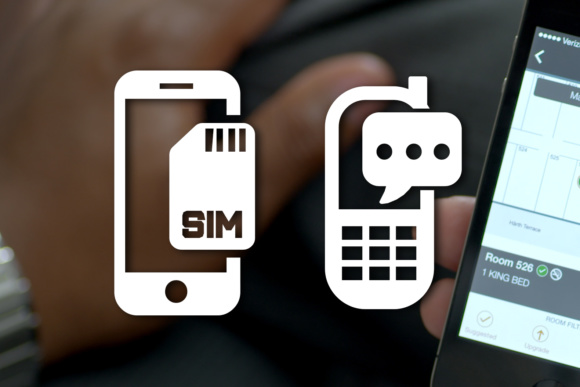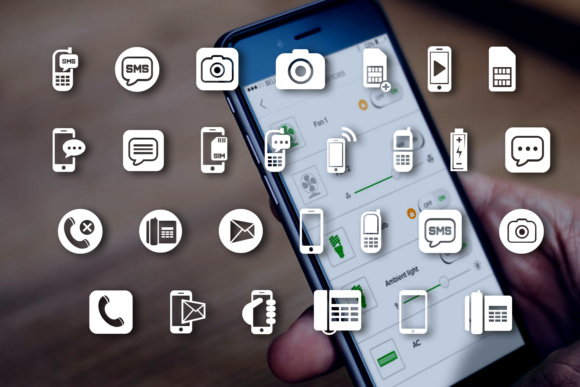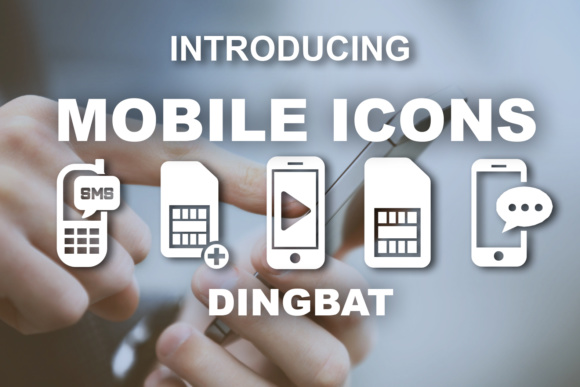
Mobile Icons Font
About Mobile Icons Font
Mobile Icons is an awesome dingbat font that offers a wide range of mobile icon graphics. Whether you’re a designer working on mobile app interfaces, a developer creating websites with mobile compatibility, or simply someone who loves incorporating mobile-themed elements into your designs, Mobile Icons has you covered.
This dingbat font provides a diverse collection of mobile-related icons, representing various functions, features, and app categories. You’ll find icons for phone calls, messaging, social media, settings, camera, music, maps, shopping, and much more. The icons are designed to be visually appealing and easily recognizable, making them suitable for a wide range of design projects.
The convenience of Mobile Icons lies in its use as a font. Each icon corresponds to a specific keyboard character, allowing for easy access and integration into your designs. By simply typing the corresponding character, you can insert the desired mobile icon directly into your text or design software, saving you time and effort.
The versatility of Mobile Icons enables you to enhance your designs in various ways. You can use the icons as standalone elements, incorporate them into navigation menus or buttons, or even create custom patterns and compositions using a combination of different icons. The possibilities are endless, allowing you to tailor your designs to suit your specific needs.
Whether you’re creating mobile app interfaces, designing website mockups, or adding a touch of mobile aesthetics to your graphics, Mobile Icons provides a comprehensive set of icons that will elevate your designs. It’s a valuable resource for designers, developers, and anyone looking to incorporate mobile-themed graphics into their projects.
In summary, Mobile Icons is an awesome dingbat font that offers a diverse collection of mobile icon graphics. With its wide range of icons representing various mobile functions and features, this font is a versatile tool for designers and developers. Let Mobile Icons inspire your creativity and enhance your mobile-themed designs with its comprehensive selection of icons.